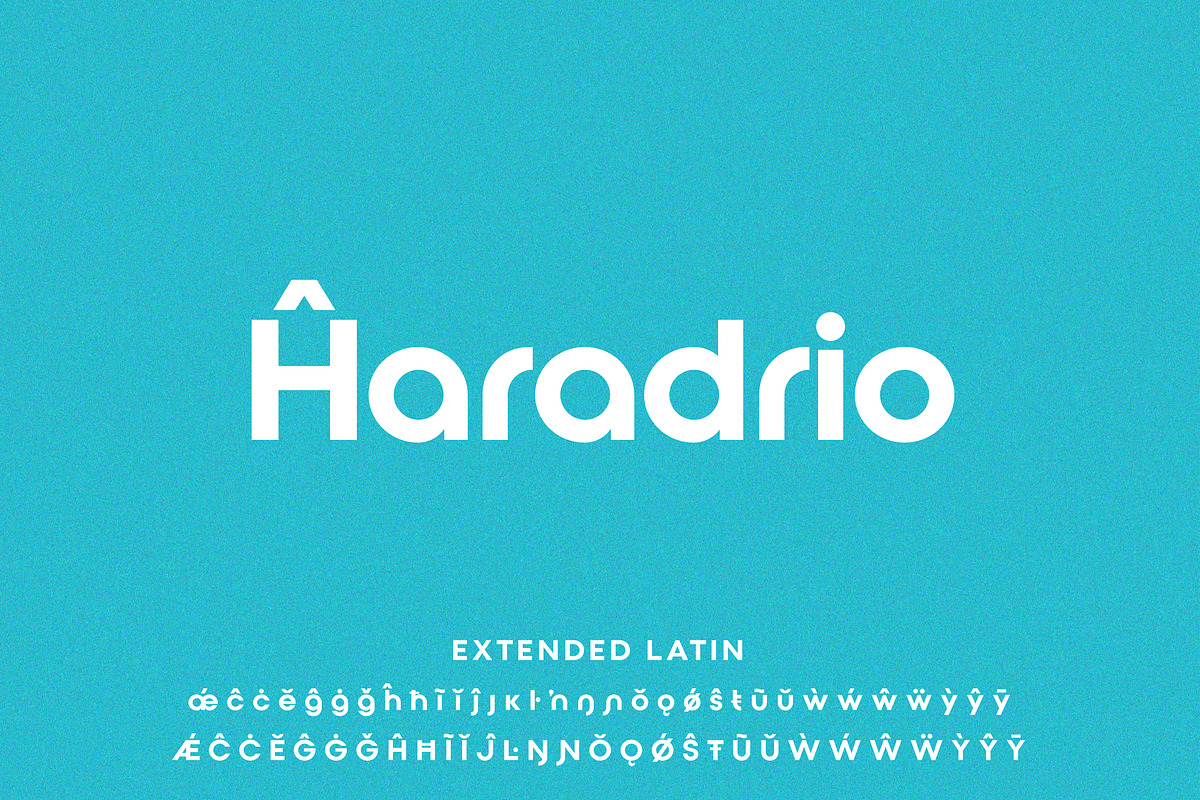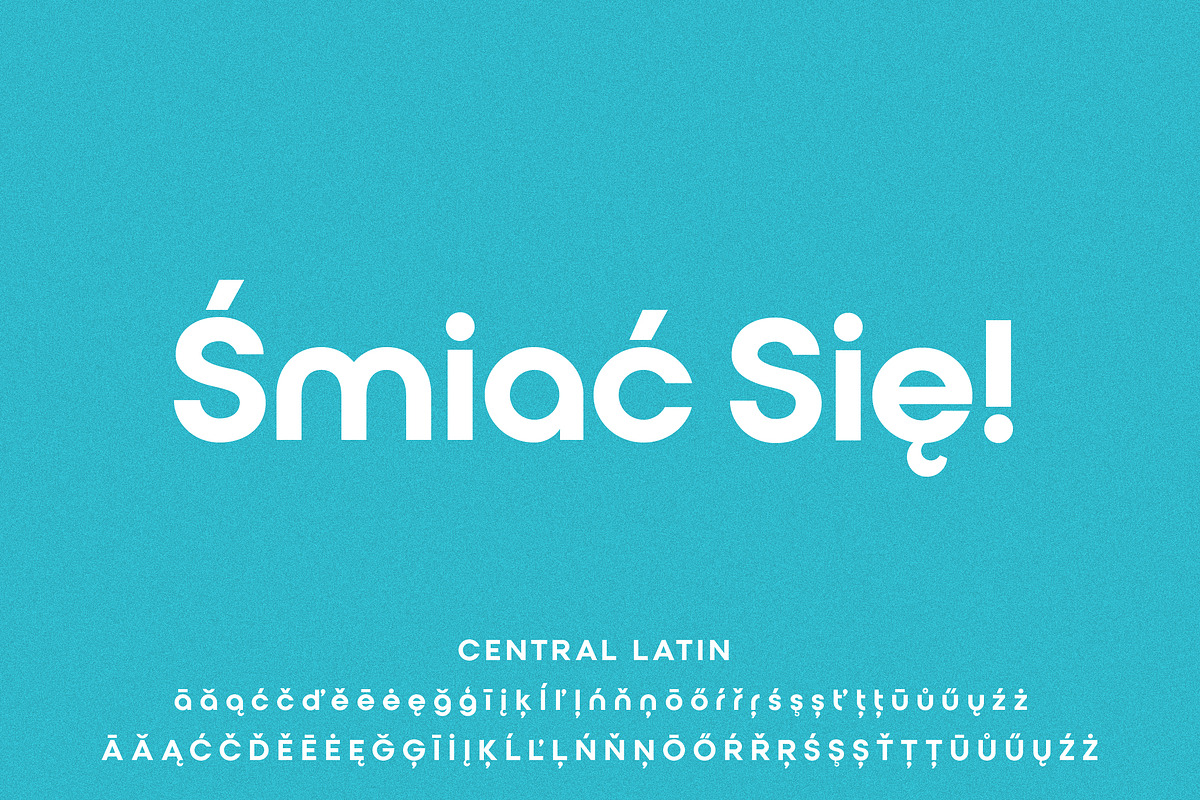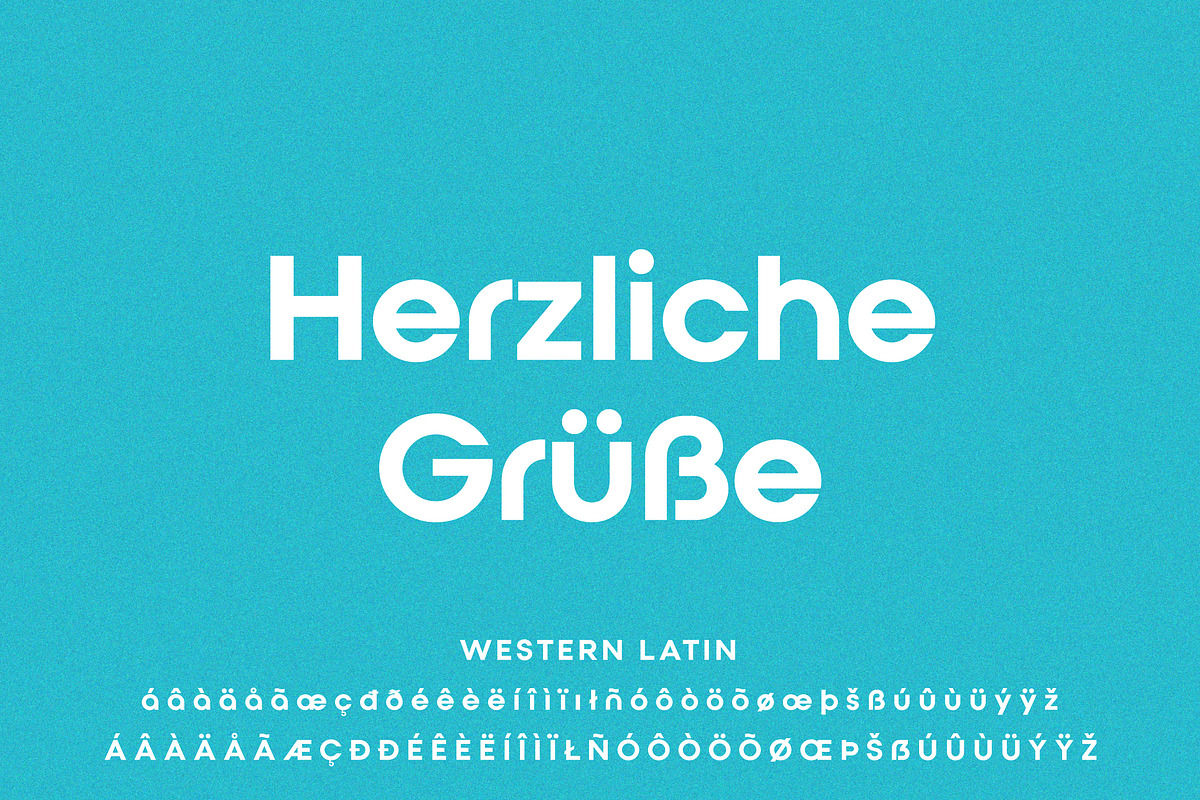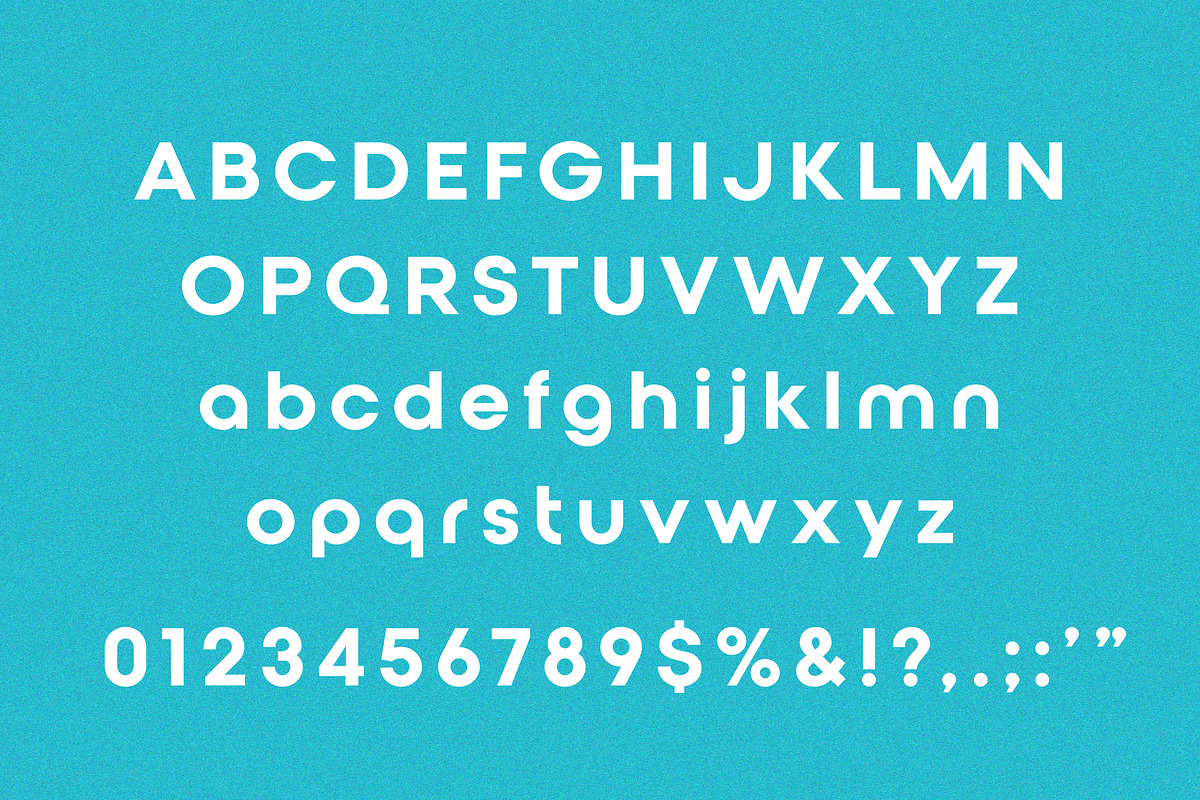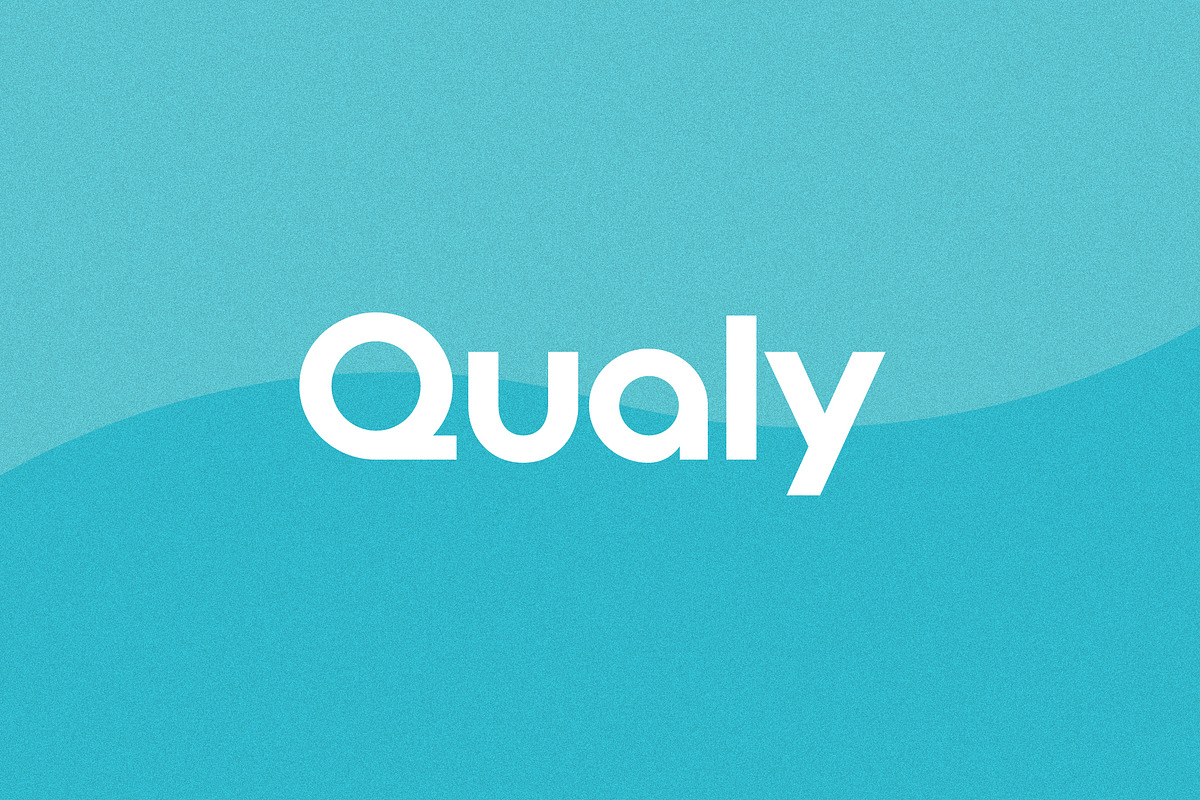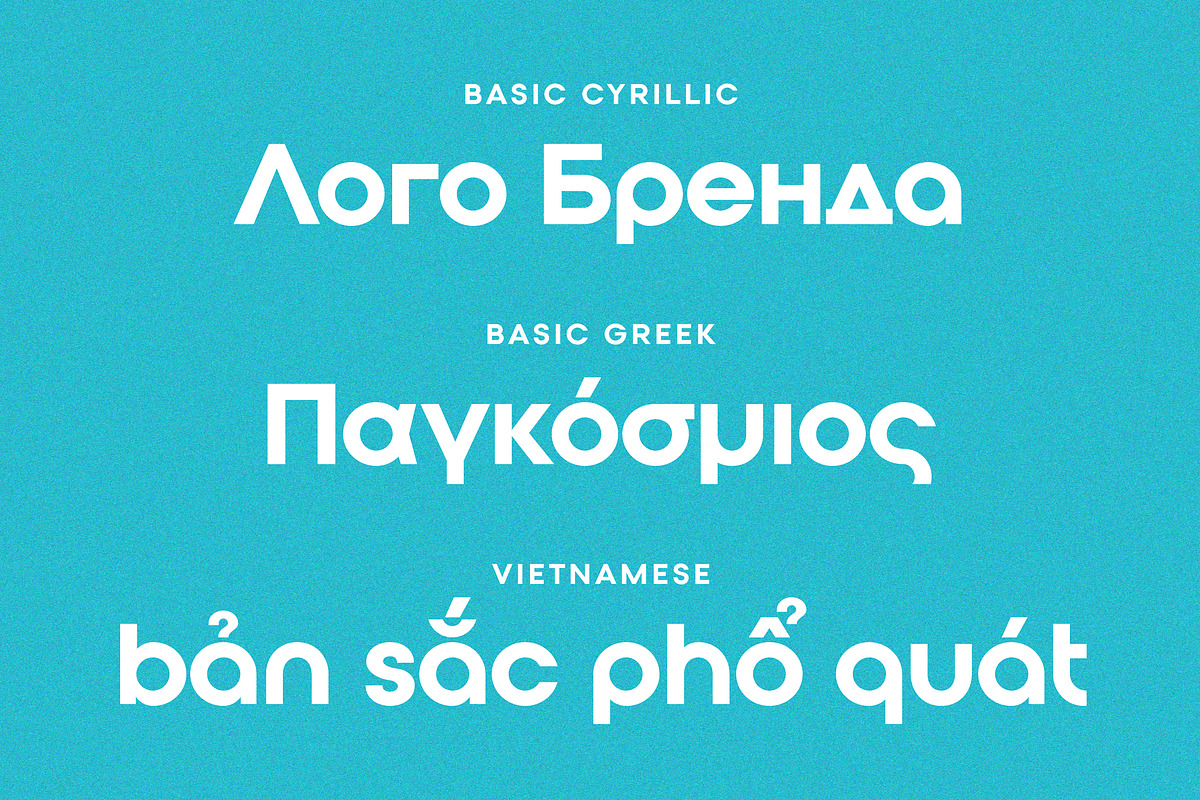
Qualy Logo Font
Qualy is a special font for your logo & branding.
Every character is designed for a good logo, so not suitable for a long text.
673 Glyphs & 230 Languages: Extensive Latin / Cyrillic / Greek / Vietnamese
Concept: Ambitious / Creative / Fresh / Global / Trendy